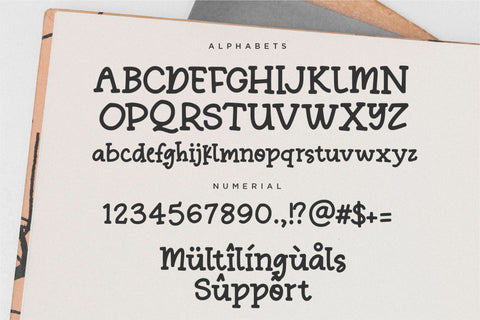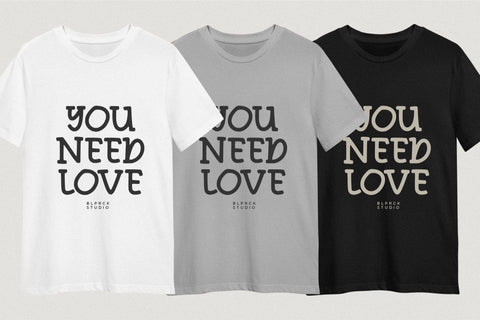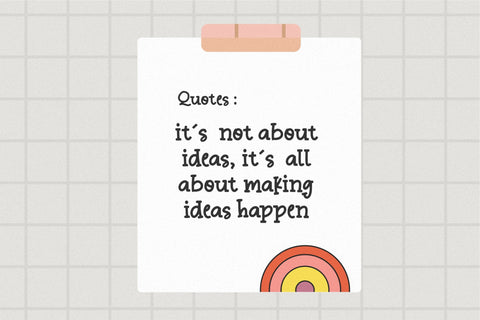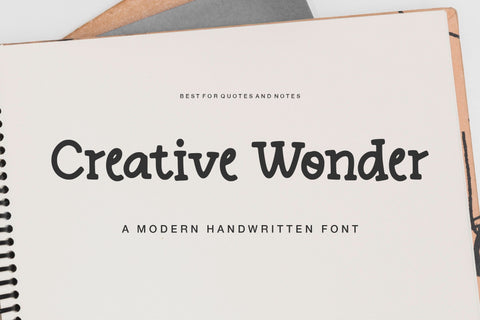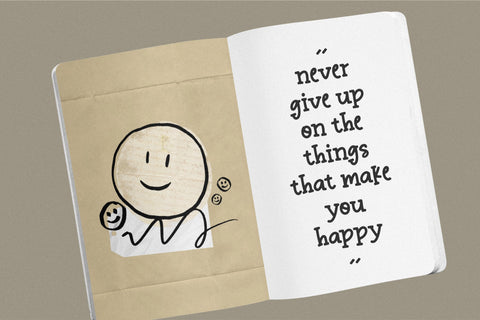
Creative Wonder Font
Creative Wonder is a Modern Handwritten Font.
Our handwritten font takes inspiration from the fluidity and uniqueness of human handwriting, ensuring that each letter carries a sense of character and charm. With its graceful curves and delicate strokes, this font adds an intimate and personal feel to your written words.
Perfect for creating notes, memos, journal entries, or beautiful quote designs, our handwritten font elevates your messages with a sense of authenticity and warmth. It transforms your ordinary words into a beautiful composition, breathing life into your writing.